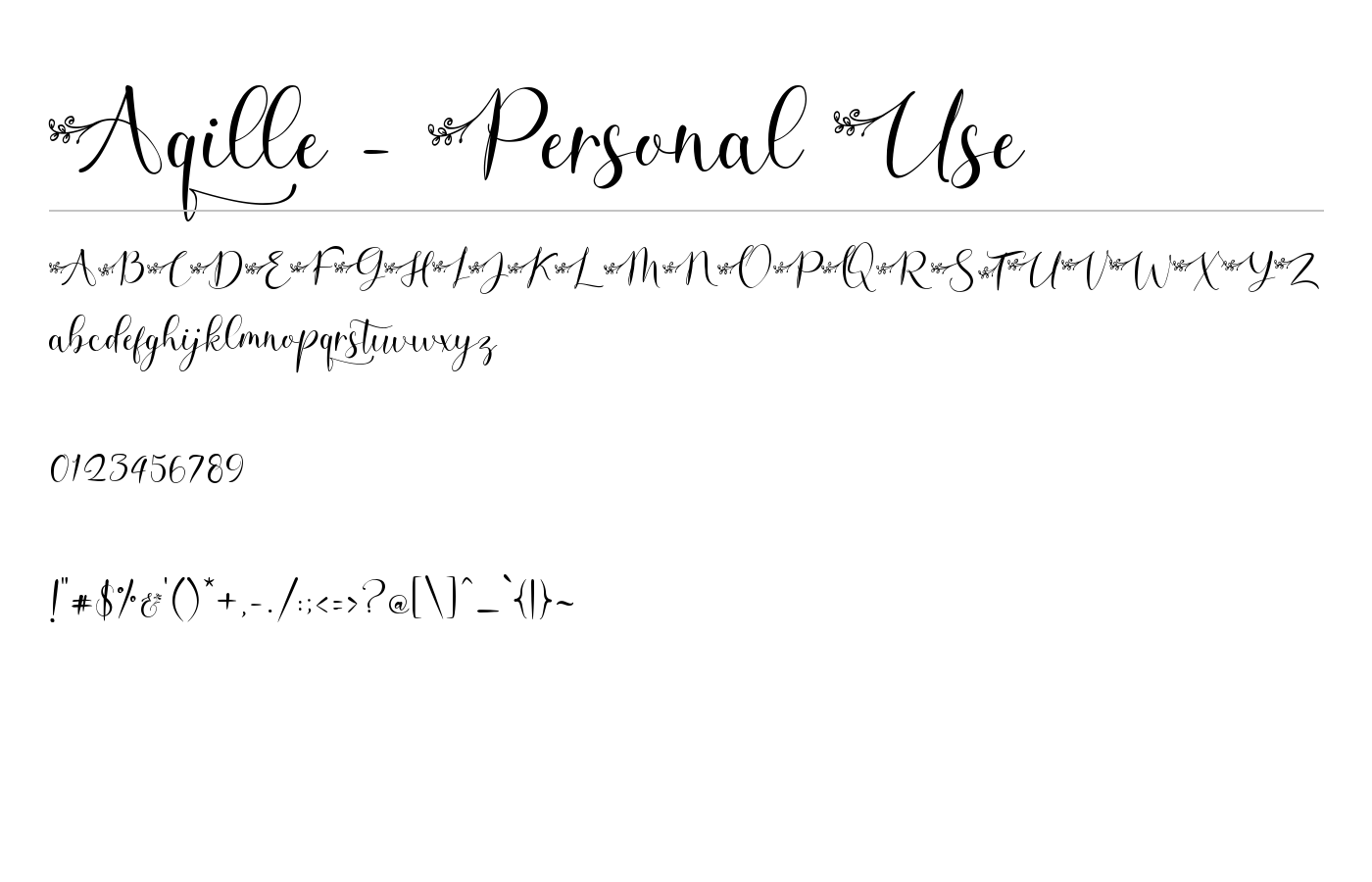
Aqille is an elegant, handwritten script font with delicate, flowing letterforms and decorative flourishes that add a charming, whimsical feel. Its thin strokes and artistic details make it perfect for personal projects, invitations, and branding that seeks a touch of sophistication and creativity. This font works beautifully in designs that want to convey grace, femininity, and uniqueness.
Aqille - Personal Use Font
About Aqille - Personal Use Font
| Font family | Aqille - Personal Use Font |
| Designer | Aditiyo Dwi Putranto |